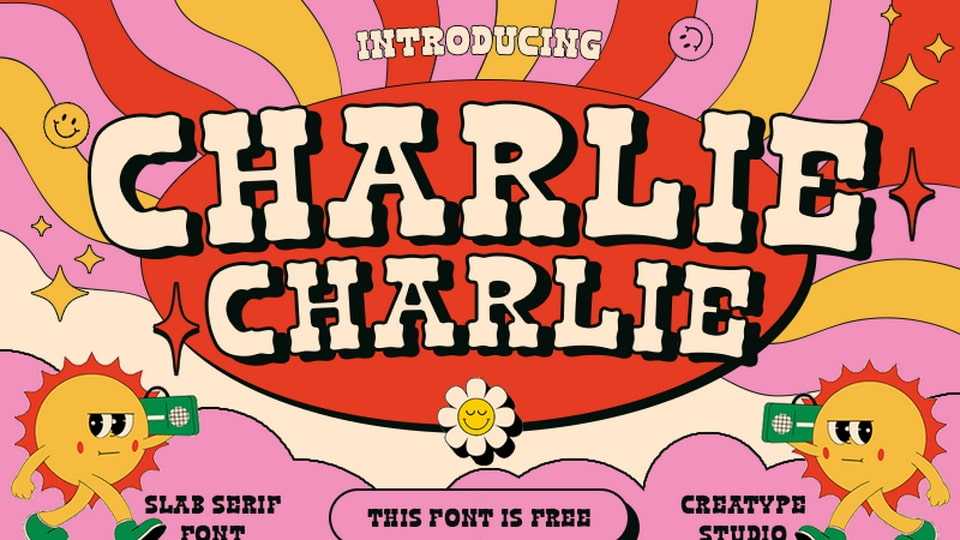
Download Charlie font, a bold vintage Western typeface with a warm and approachable personality. Charlie font strikes the perfect balance between bold nostalgia and inviting charm.